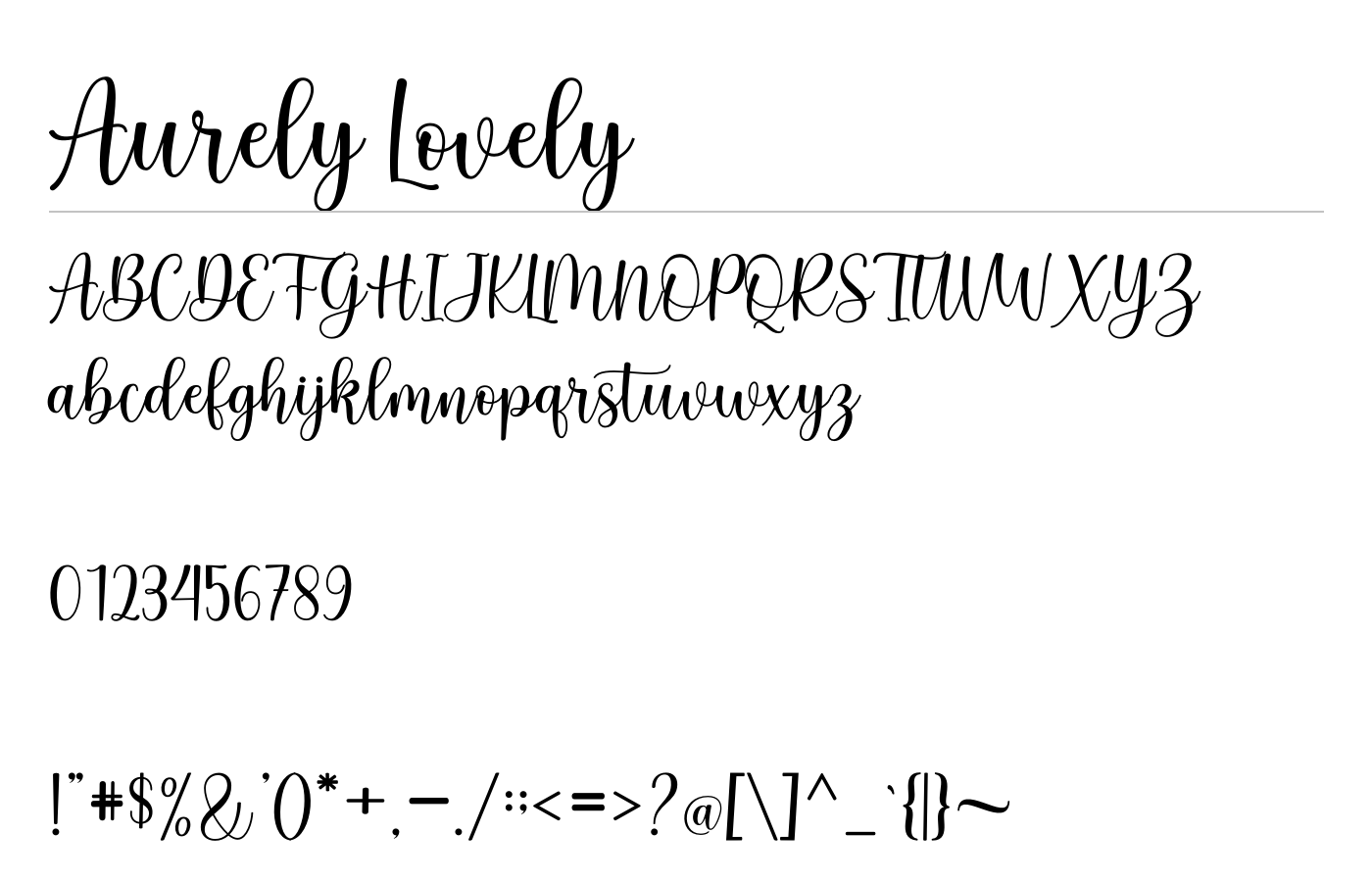
Aurely Lovely is a charming script font with a delicate, handwritten feel, featuring smooth flowing strokes and elegant, slightly playful letterforms. Its light weight and moderate contrast make it ideal for romantic, feminine, and creative designs such as invitations, branding, and social media graphics. This font works well where a personal, graceful touch is needed to convey warmth and sophistication.
Aurely Lovely Font
About Aurely Lovely Font
| Font family | Aurely Lovely Font |